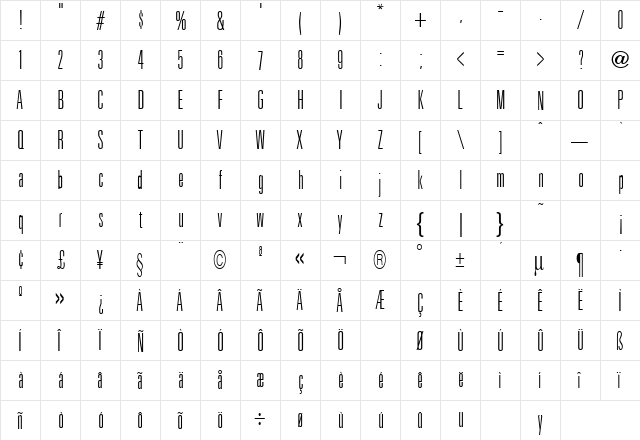
Uniform Ultra Condensed Light Regular Font Preview
Design Context for Uniform Ultra Condensed Light Typeface
Uniform Ultra Condensed Light is a composed and adaptable typeface that performs quietly and consistently across a wide range of design contexts. Its slender proportions lend an understated elegance to any composition. The condensed width makes it efficient for tight spaces without sacrificing legibility.